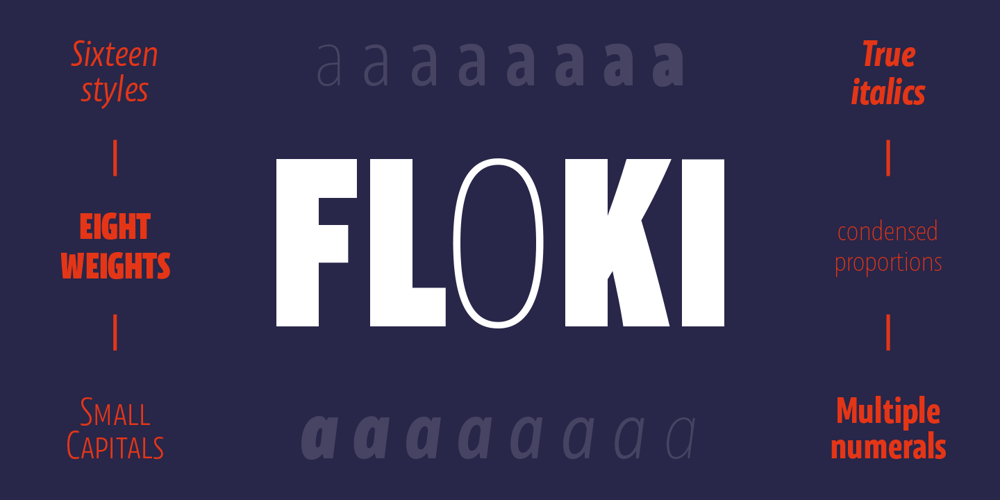
Floki Font Family was designed by Teo Tuominen and published by LetterMaker. Floki contains 16 styles and family package options. Floki is a contemporary condensed sans serif with sixteen styles ranging from extralight to extrabold and accompanying italics. The amount of styles, condensed proportions and large character set make Floki suitable for various uses such as infographics, packaging, branding, advertising and editorial design. Floki’s aesthetics are distinctly modern and they have a hint of softness which comes from sublty curving the diagonal strokes in letters such as A and V. This feature really shines when you set text in tightly set caps as big as possible. Stylistically Floki leans more to the humanist sans serif but it has a flavour of geometry in its shapes as well. The result of this combination of features is a highly usable typeface with a clear voice of it’s own. All styles feature small caps and multiple sets on numerals including lining figures, old style figures, tabular figures, small cap figures, numerators, denominators, superiors, inferiors and fractions. Floki has latin extended character set making it well suited for multilingual typography.